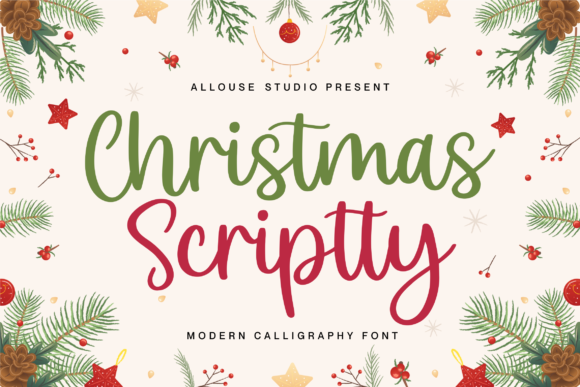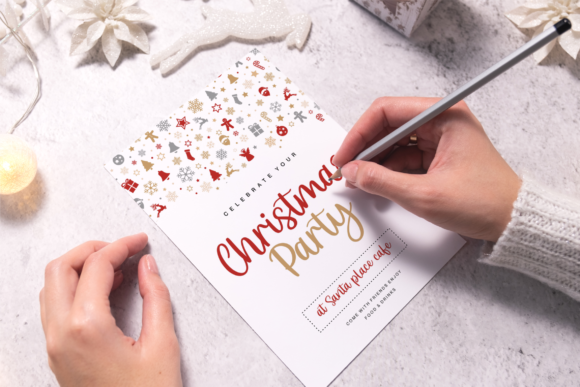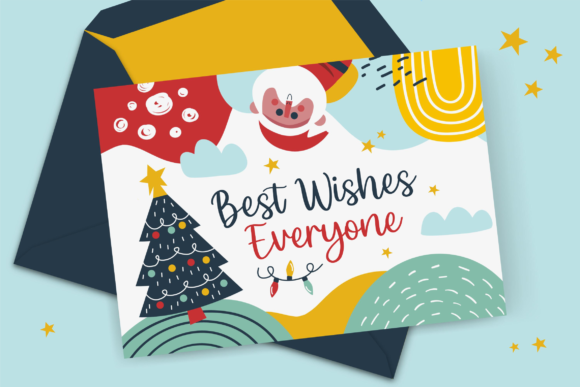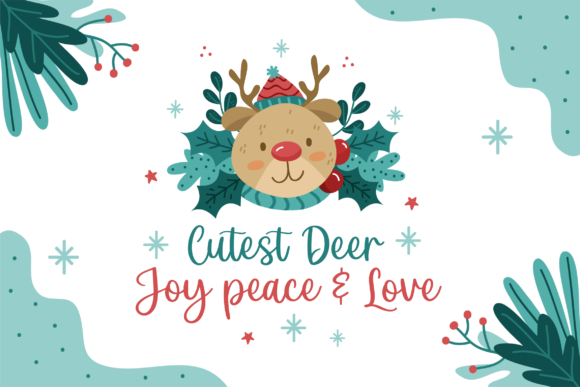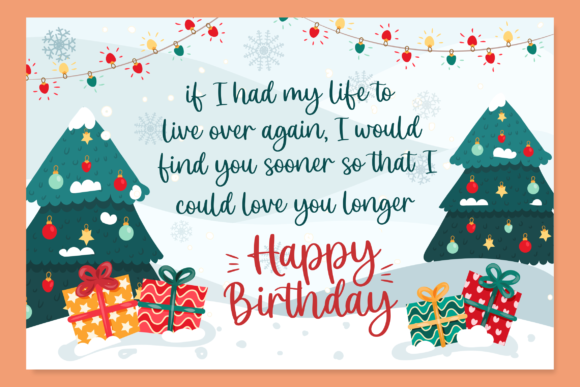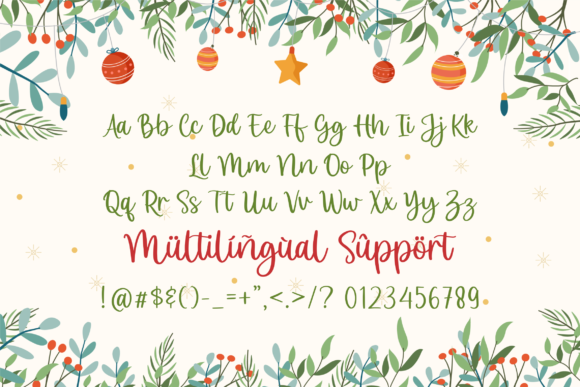
Christmas Scriptty Font
Christmas Scriptty is a dazzling script font. It will add a luxury spark to any design project that you wish to create! Add it confidently to your projects, and you will love the results.